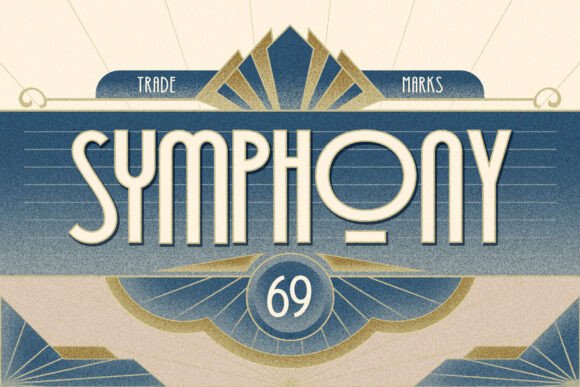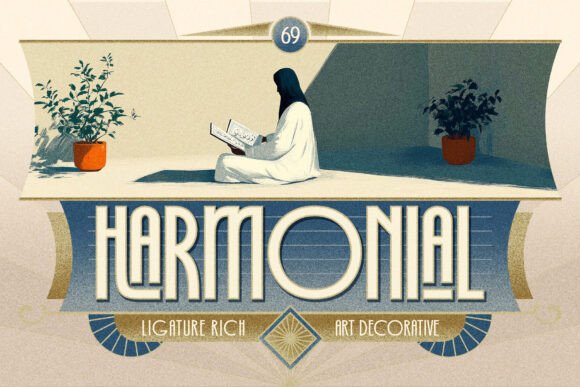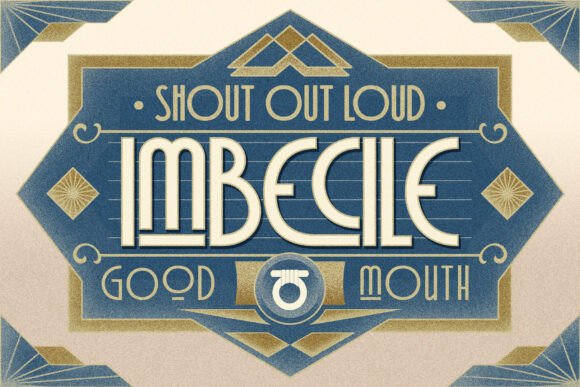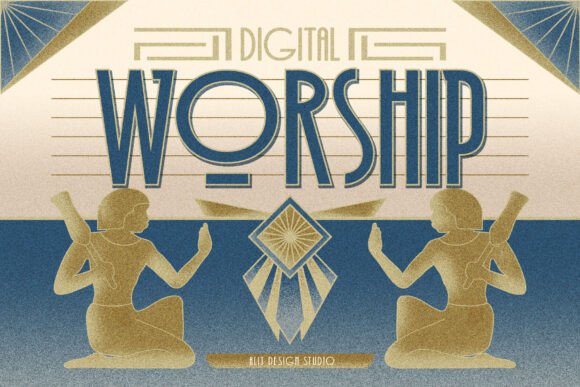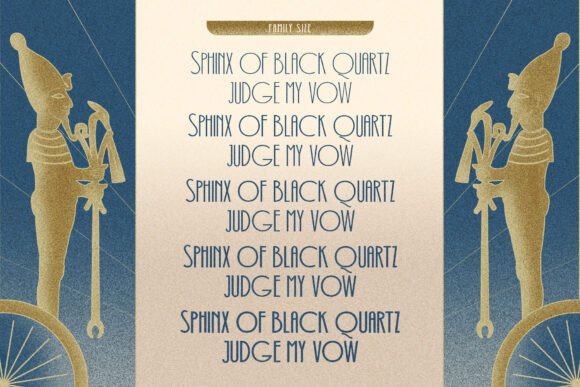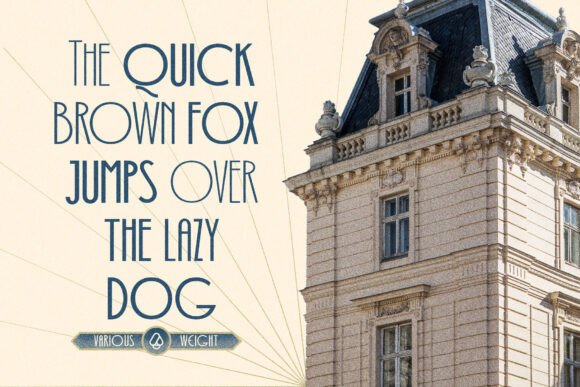
Introducing Decondol Font: Elevate Your Designs with Timeless Elegance
In the world of typography, few typefaces manage to capture the essence of both modern sophistication and vintage charm. Decondol Font, a stunning Art Deco-inspired typeface, achieves just that. With its geometric symmetry, bold aesthetics, and refined details, Decondol seamlessly blends the best of both worlds, making it an indispensable asset for designers and crafters looking to elevate their work.
The Art Deco Revival: A Modern Twist on Timeless Design
Decondol Font draws inspiration from the opulent Art Deco era, a period renowned for its geometric shapes, metallic materials, and bold, luxurious aesthetic. This typeface redefines contemporary style by infusing modern minimalism with the classic elegance of Art Deco. The result is a versatile and sophisticated font that can be used across various design applications, from branding and editorial layouts to packaging and beyond.
Key Features of Decondol Font
- Modern Art Deco Aesthetic: Decondol strikes the perfect balance between vintage charm and modern simplicity, making it suitable for a wide range of design projects.
- Five Versatile Weights: The font comes in five carefully crafted weights, each designed to cater to different design needs:
- Light: Ideal for subtle elegance and understated designs.
- Regular: A balanced weight perfect for text and clean layouts.
- Medium: Adds a touch of boldness while maintaining sophistication.
- Semi Bold: Great for making statements with finesse.
- Bold: Strong and striking, ideal for headlines and standout elements.
- Stylized Letterforms: Decondol’s geometric shapes and smooth lines not only enhance legibility but also add a distinctive flair to your designs.
Perfect Use Cases for Decondol Font
Decondol’s versatility makes it an excellent choice for a variety of design applications. Here are some of the ideal use cases for this sophisticated typeface:
- Branding and Logos: Decondol demands elegance and authority, making it perfect for brands looking to establish a luxurious and modern identity.
- Editorial Layouts: From magazines and newspapers to event invitations and editorial spreads, Decondol’s refined aesthetic adds a touch of sophistication to any text.
- Packaging Design: Combine luxury with modernity in your packaging designs. Decondol’s bold yet elegant style ensures your product stands out on store shelves.
- Digital and Print Media: Whether you’re working on a website, social media graphics, or print materials, Decondol’s versatility ensures it adapts seamlessly to various mediums.
Why Choose Decondol Font?
In a sea of typefaces, Decondol stands out for its unique blend of modern elegance and timeless design. Here are a few reasons why designers and crafters should consider adding Decondol to their toolkit:
- Unique Aesthetic: Decondol’s Art Deco inspiration sets it apart from more common typefaces, allowing designers to create distinctive and memorable work.
- Versatility: With five weights and a wide range of applications, Decondol is an incredibly versatile font that can be used across various projects.
- Legibility: The stylized letterforms and geometric design ensure that Decondol is not only beautiful but also highly legible, making it suitable for both headlines and body text.
Decondol Font is more than just a typeface; it’s a design statement. Its perfect blend of modern elegance and Art Deco charm makes it an invaluable asset for designers looking to elevate their work. Whether you’re creating branding materials, editorial layouts, or packaging designs, Decondol offers the sophistication and versatility you need to make a lasting impression. Discover the power of Decondol and take your designs to new heights of elegance and style.